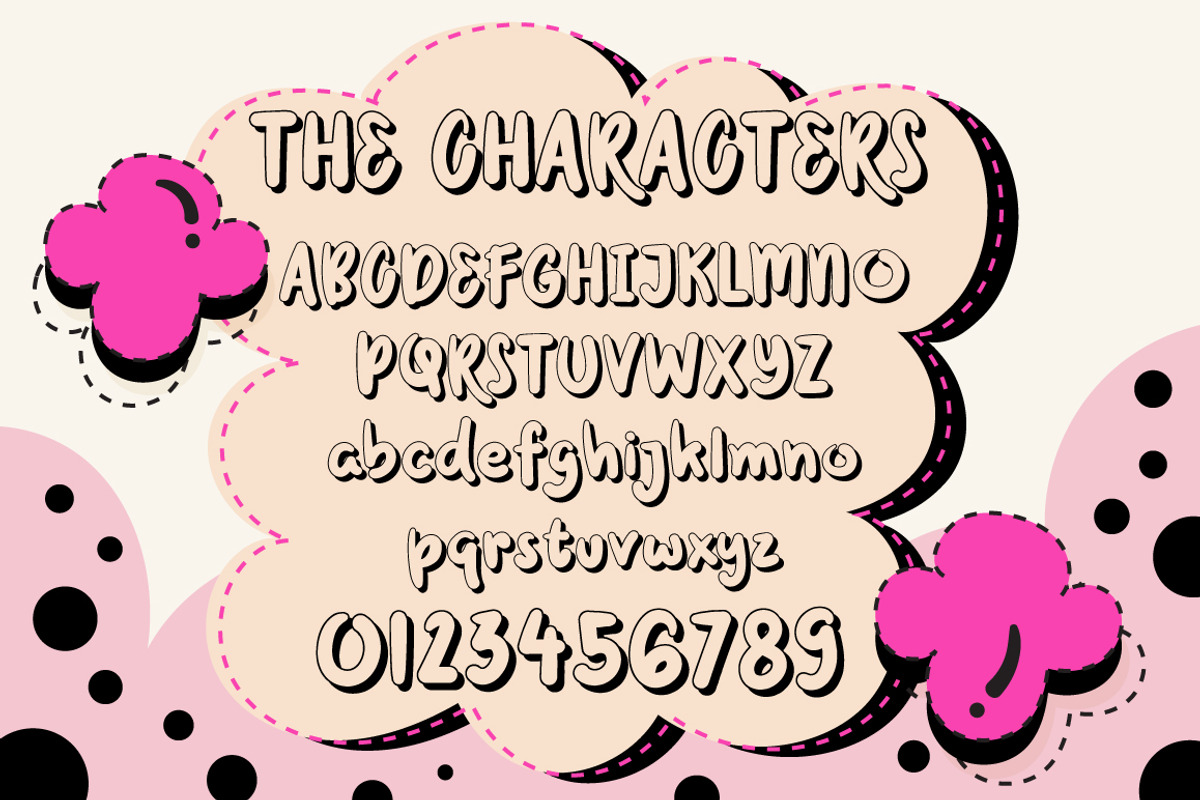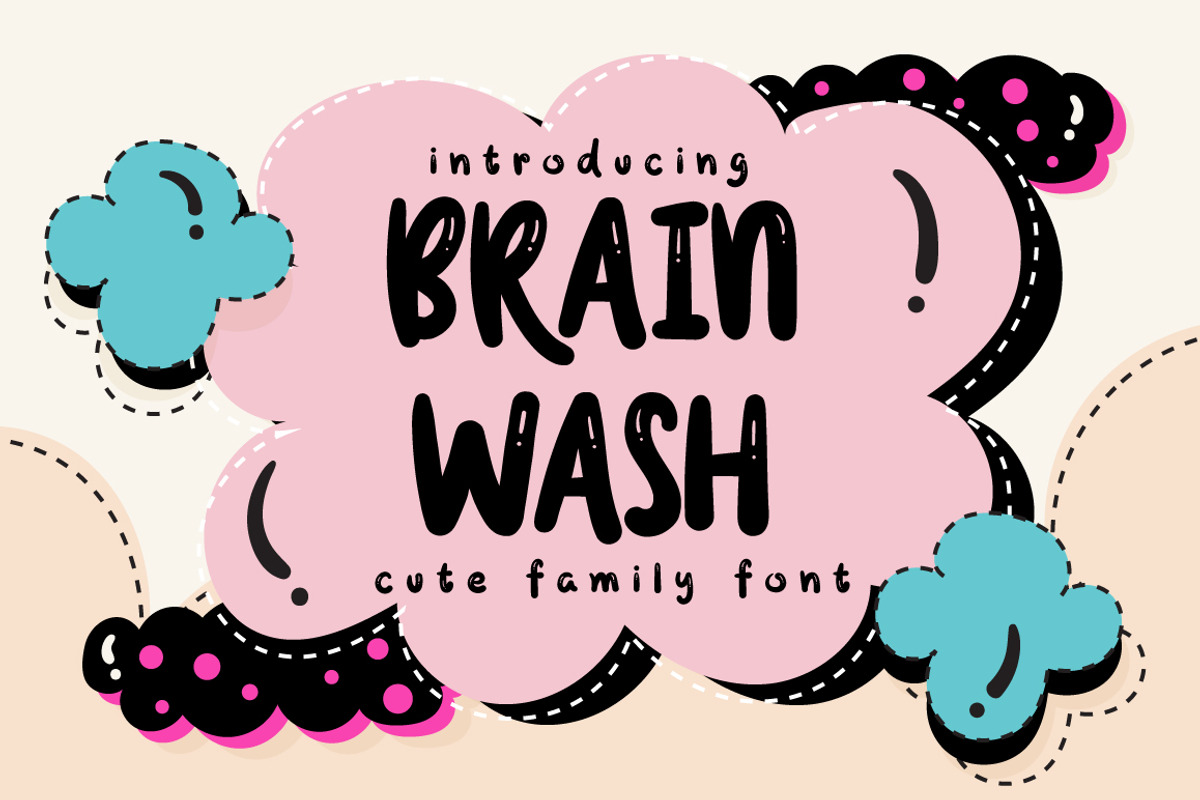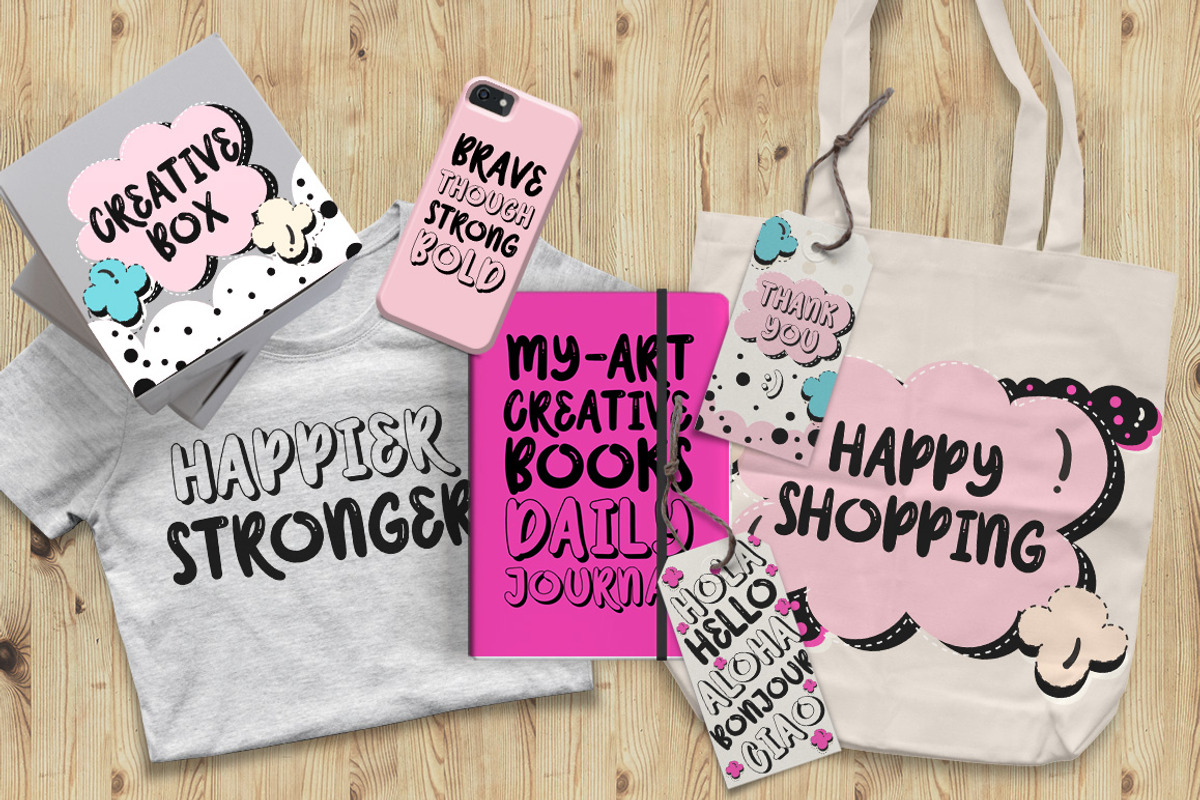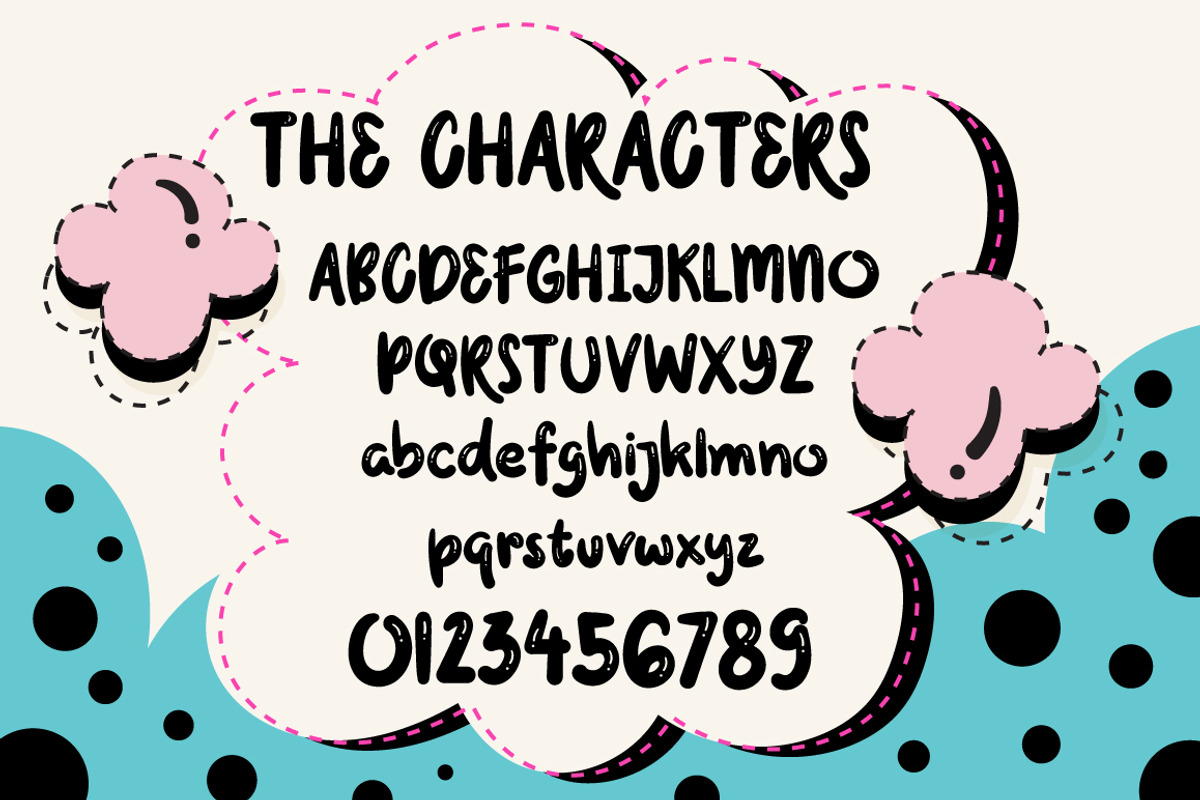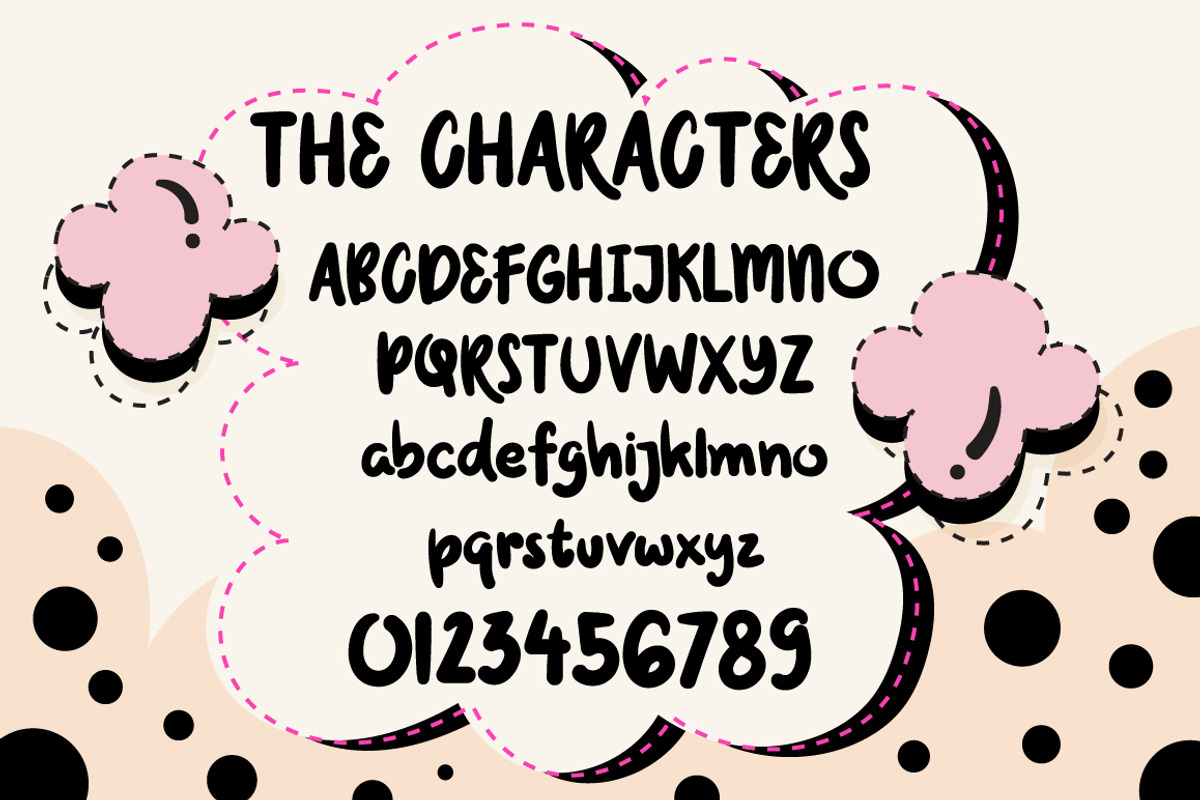
Brain Wash Typeface
Hi there! Brain wash your life with creative vibes!
Brain Wash is a cute type face with 3 style ( shadow, regular and plain). Perfect for cute girl-ish design style!